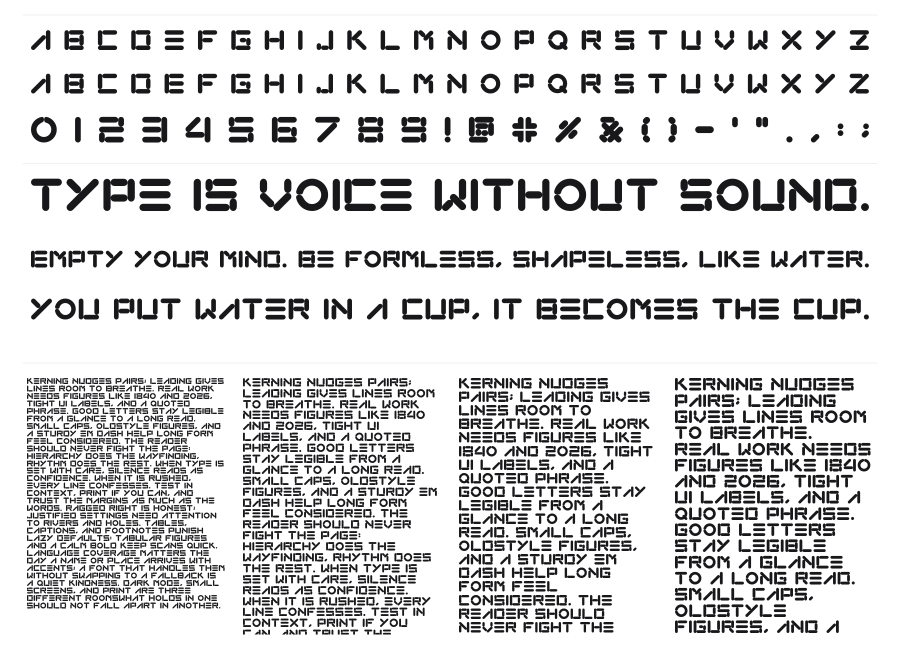
Loxo
by CJ Gong · Website
Loxo is a modular techno display font built from segmented geometric units that give each character a fractured, tile-like construction. The heavy weight and wide proportions make it visually dominant at large sizes, while the deliberate gaps between segments add a circuit-board rhythm. It sits comfortably in gaming titles, tech branding, and anywhere a machine-built aesthetic is the point.